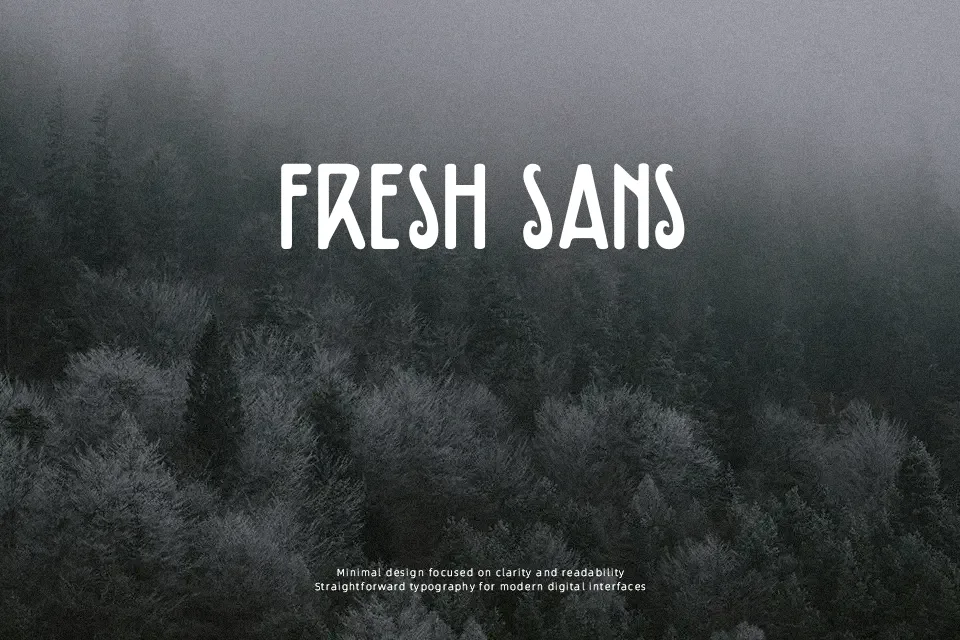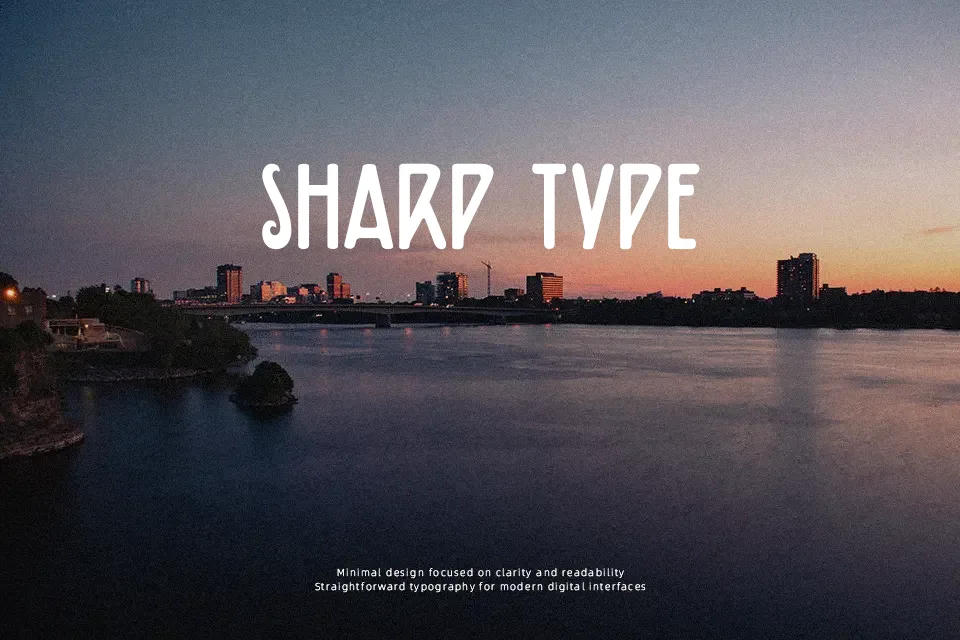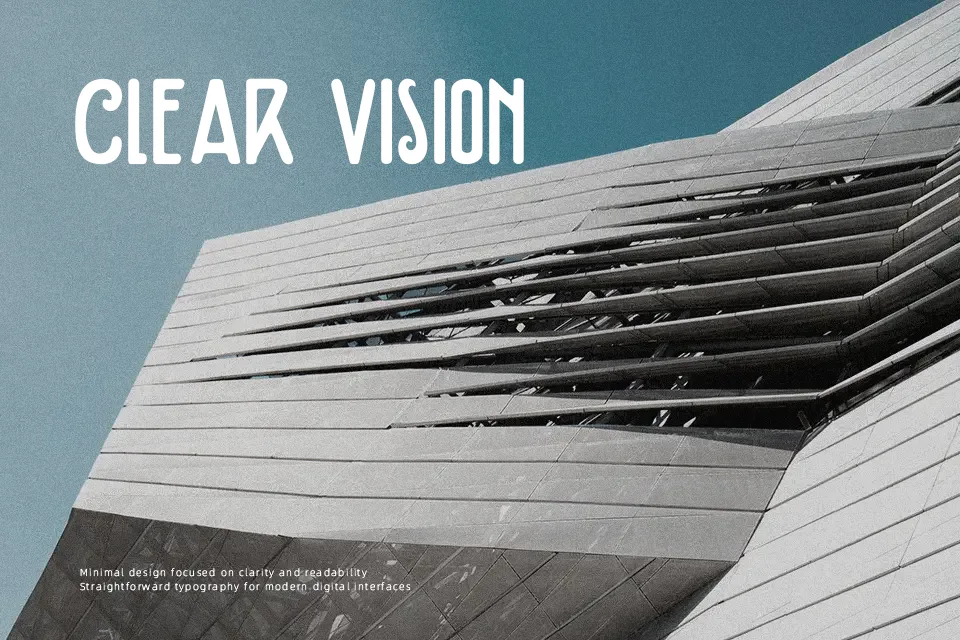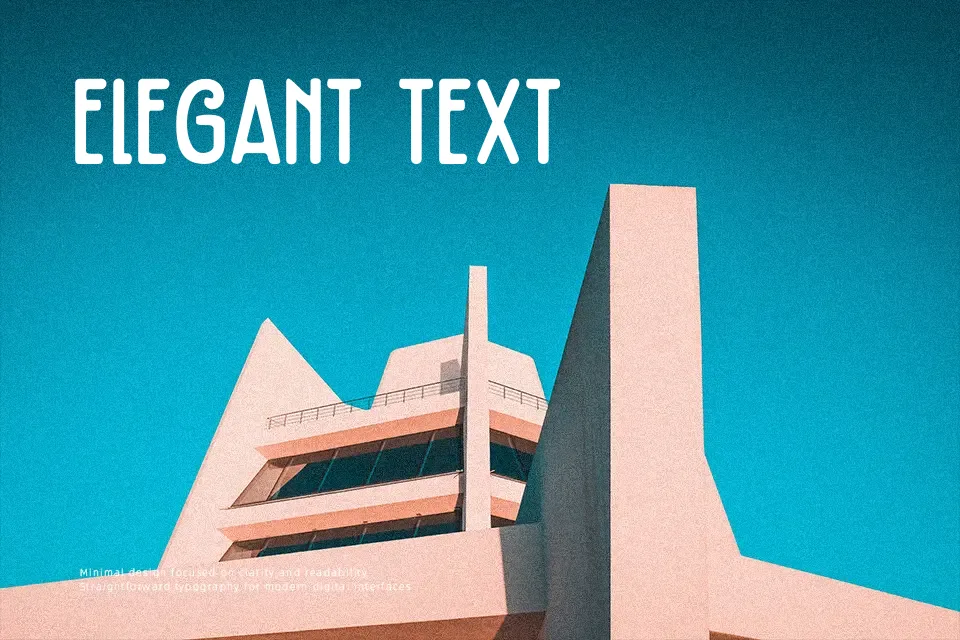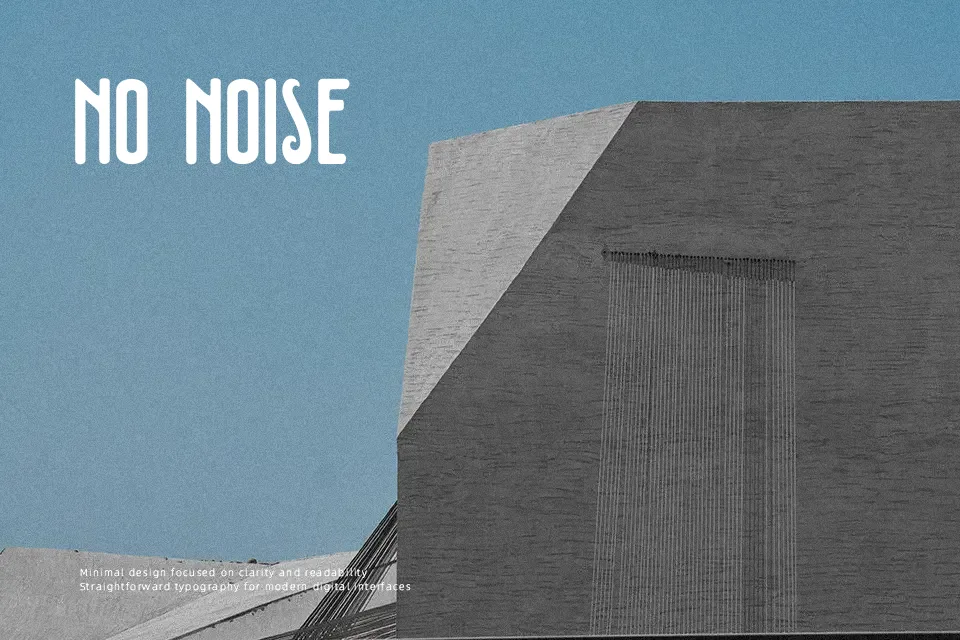
DK Fiebiger Eins Font
Designed by Hanoded
DK Fiebiger Eins has a tall, compressed build with even strokes, rounded terminals, and angular interior cuts that give it an Art Deco flavor without feeling too polished. It works nicely on bar menus, record sleeves, poster titles, and packaging where a vintage mood needs structure rather than ornament. I like it most when the wording is short and the layout has some breathing room. It is less convincing for long reading, small UI text, or logos that must stay instantly clear at a distance.
retro poster titles,cafe or bar menus,vintage packaging,album cover lettering
long reading text,small mobile UI labels,formal corporate reports,wayfinding signage
Perfect for branding, headline, and packaging, with a artistic and condensed style.